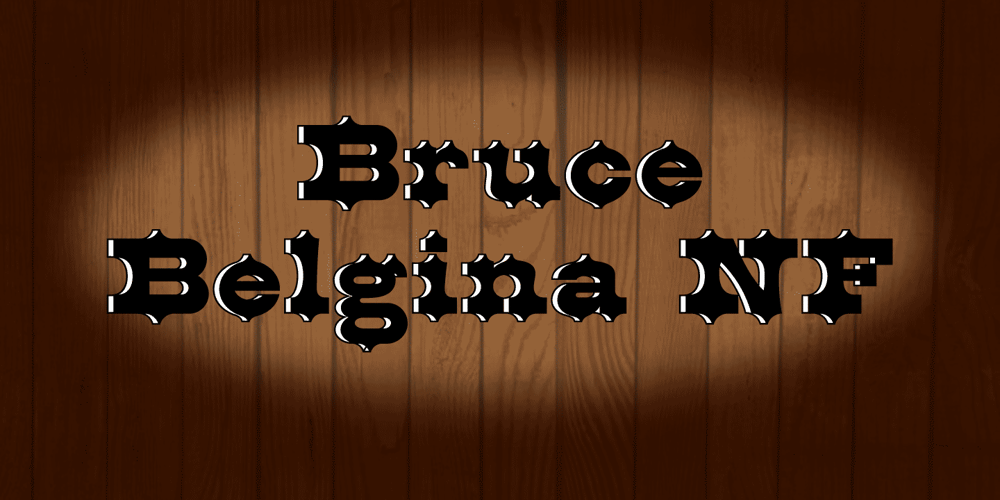
Bruce Belgina NF
Bruce Belgina NF font
Bruce Belgina NF Font Family was designed by Nick Curtis and published by Nick’s Fonts. Bruce Belgina NF contains 1 styles and family package options. Patented in 1867, this face adds peaks and shadows to the Egyptian form so popular at the time.